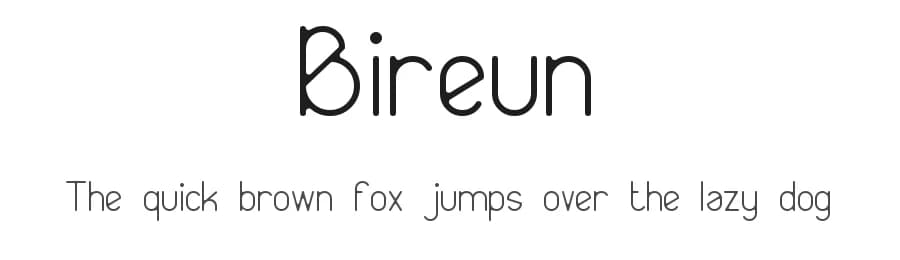
About Bireun Font
Bireun is a sans-serif font designed by Mukhlis Risani. It includes 236 glyphs, a regular weight, TTF (TrueType) format, and 209 languages. Bireun is free to download; check the license details on this page before commercial use. Sans-serif fonts like Bireun work best for clean body text, user interfaces, branding, and modern layouts.
Bireun Font is a versatile sans-serif font that works for both headings and body text. Pair it with a contrasting serif or slab serif font to add visual interest and a clear distinction between titles and body copy.
Bireun Font